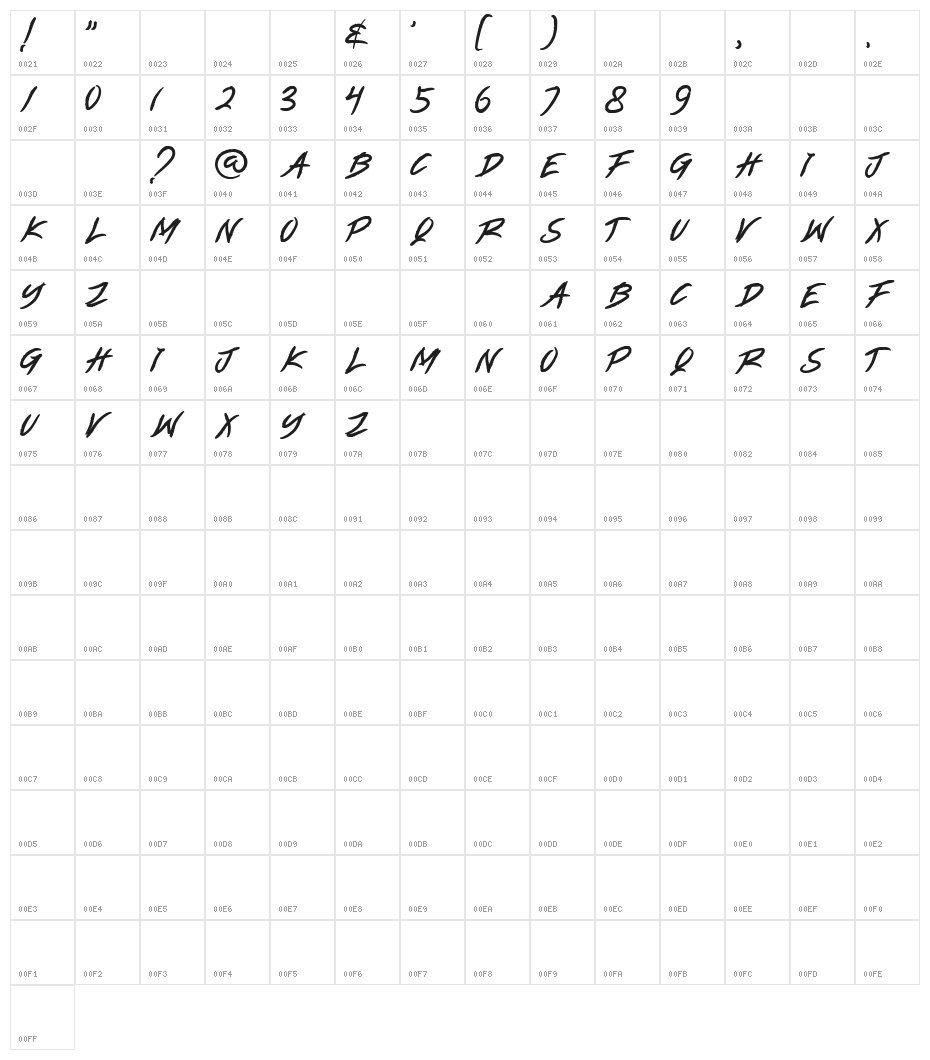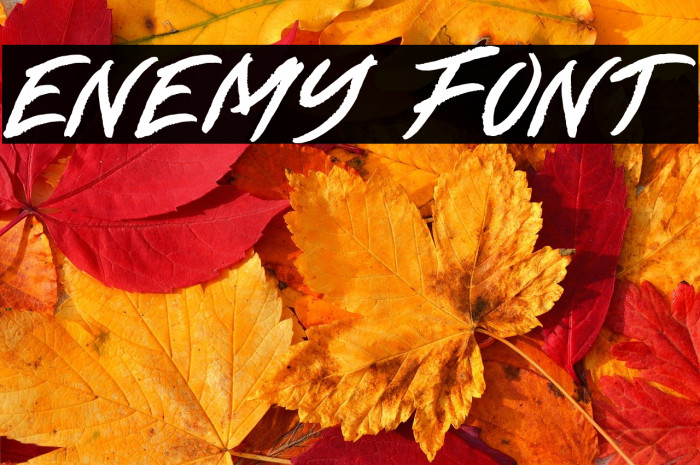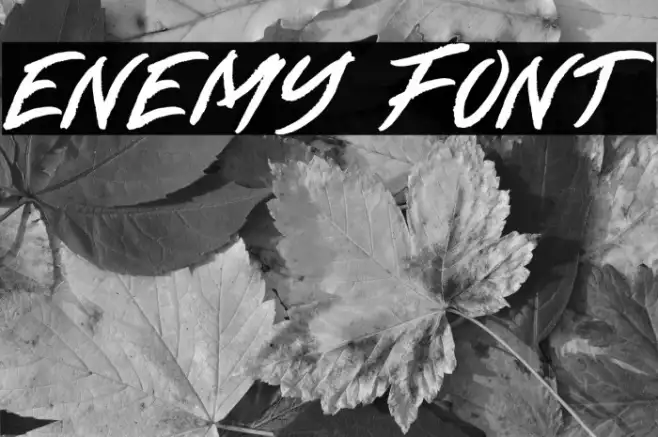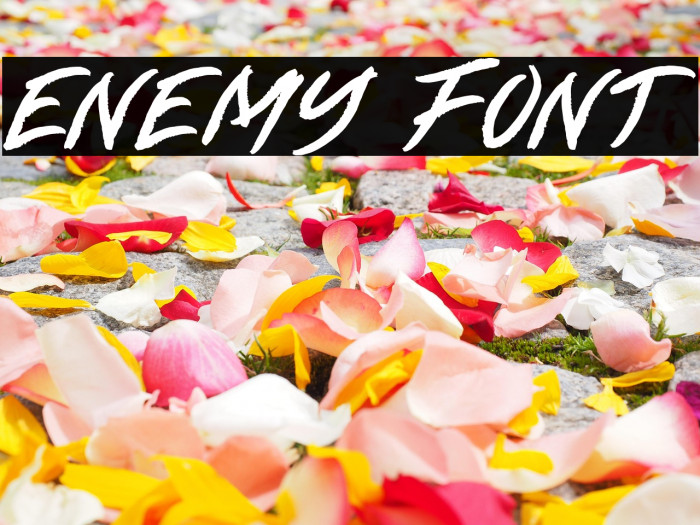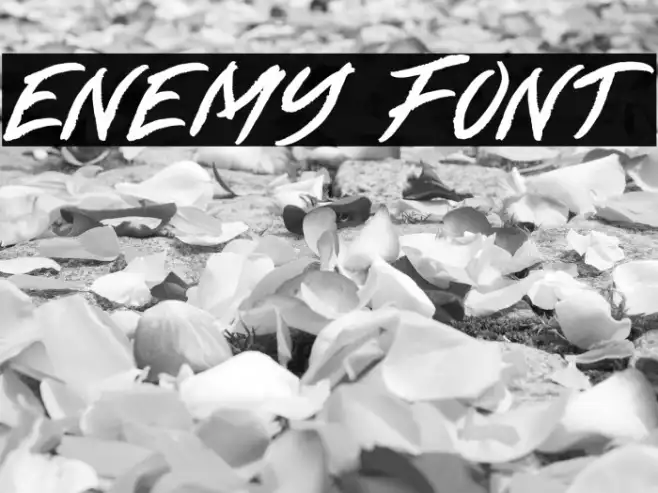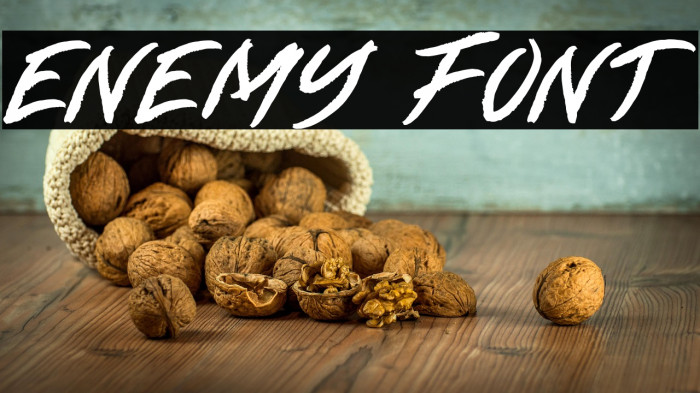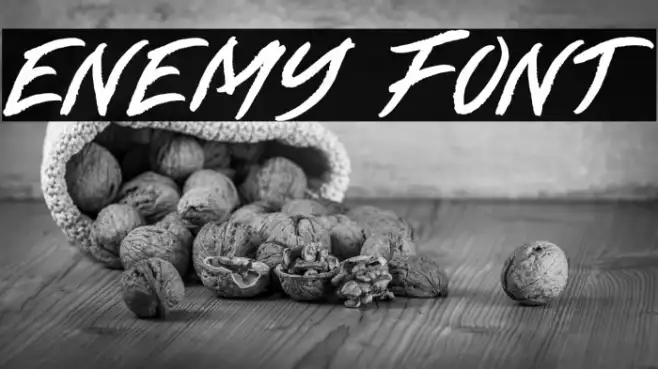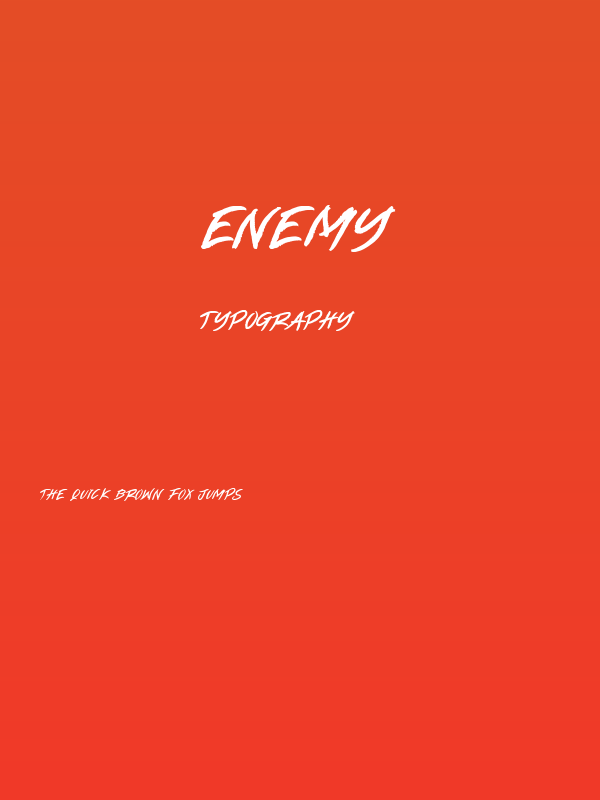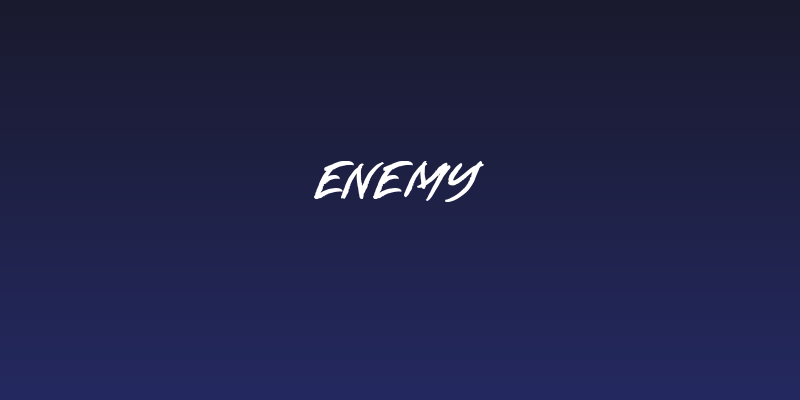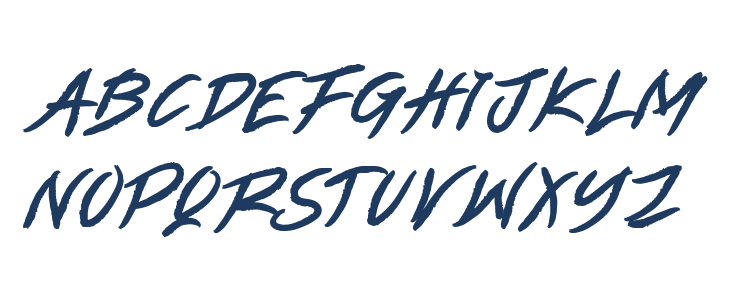
ENEMY Font
ENEMY Description
This font features a dynamic and energetic script style, characterized by its bold and fluid strokes. The letters are slightly slanted, giving a sense of motion and spontaneity. The uppercase and lowercase letters maintain a consistent style, with smooth curves and pointed edges that enhance its expressive nature. The numerals and special characters follow the same lively design, ensuring uniformity across all glyphs. This font exudes a sense of creativity and flair, making it suitable for projects that require a personal touch.
| Use Case | Logos, Invitations, Creative design |
| Proposed Projects | Ideal for branding, logos, invitations, and creative design projects that require a personal and expressive touch. |